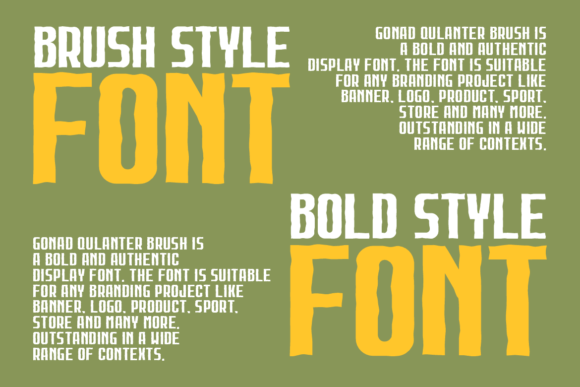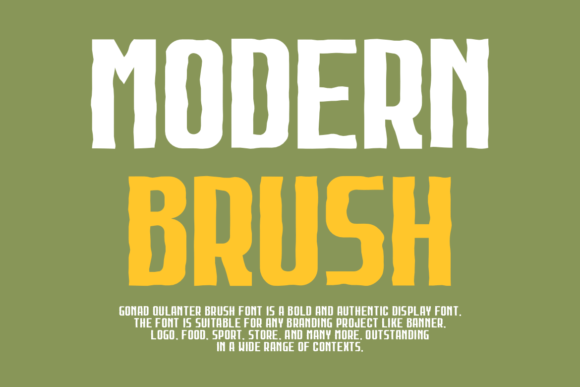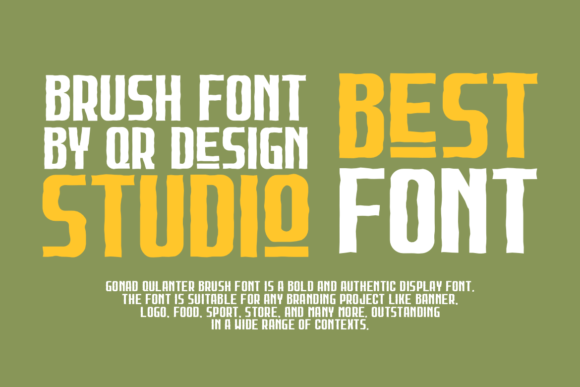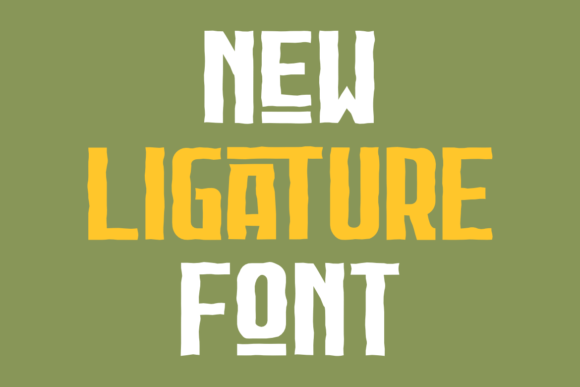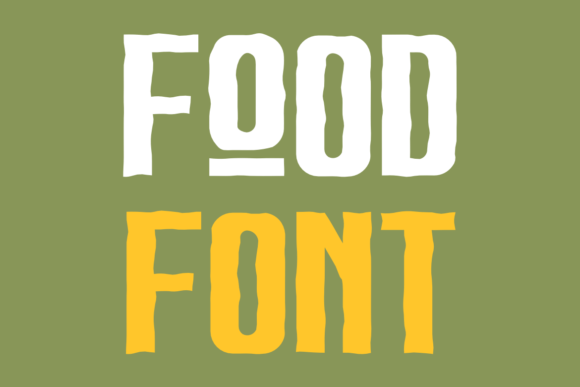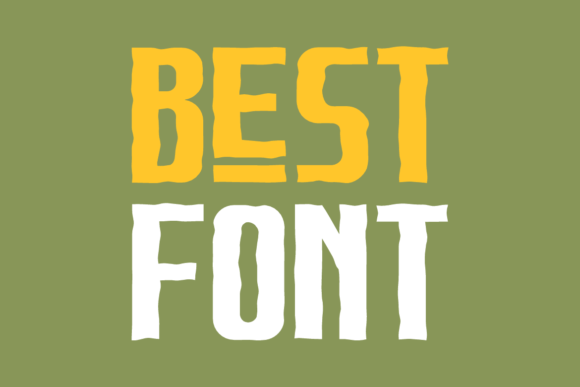
Gonad Qulanter Brush Font: Elevate Your Designs with a Bold and Authentic Touch
In the realm of typography, a font can make or break a design. For those seeking a bold and authentic display font to elevate their branding projects, Gonad Qulanter Brush Font stands out as an exceptional choice. This versatile font is designed to make a statement, perfect for a wide array of applications including banners, logos, sports designs, web design, and product packaging.
Unleashing Creativity with Gonad Qulanter Brush Font
Gonad Qulanter Brush Font is not just any ordinary font; it’s a creative powerhouse that brings a unique blend of boldness and authenticity to the table. Its brush font style gives it a handcrafted feel, making it stand out in a sea of digital designs. Whether you’re working on a branding project that requires a strong visual impact or a craft project that needs a personal touch, this font is sure to deliver.
Key Features of Gonad Qulanter Brush Font
- Bold and Authentic Display: The font’s bold appearance ensures that your message is conveyed with confidence and authority, making it perfect for headlines, titles, and any design element you want to stand out.
- Versatility: From digital platforms to print materials, Gonad Qulanter Brush Font adapts seamlessly across various mediums, ensuring consistency in your brand’s visual identity.
- Wide Range of Applications: Its adaptability makes it suitable for a myriad of design projects. Whether you’re creating a logo that needs to make a strong first impression, designing a banner that captures attention, or crafting a sports-themed design that’s both energetic and engaging, this font fits the bill.
- Easy to Use: Designed with user-friendliness in mind, Gonad Qulanter Brush Font can be easily integrated into your design workflow, allowing you to focus on creativity rather than technicalities.
Applications of Gonad Qulanter Brush Font
The applications of Gonad Qulanter Brush Font are vast and varied. Here are a few ideas to get you started:
- Banners and Posters: Create eye-catching banners and posters for events, promotions, or announcements that demand attention.
- Logo Design: Develop a memorable logo for your brand that communicates your values and stands out in the market.
- Sports Designs: Perfect for designing jerseys, sports equipment, or promotional materials that require a bold and dynamic look.
- Web Design: Enhance your website’s visual appeal with headings, titles, and call-to-action buttons that utilize the font’s bold and authentic style.
- Product Packaging: Add a personal touch to your product packaging, making it more appealing and reflective of your brand’s personality.
Tips for Using Gonad Qulanter Brush Font Effectively
To maximize the impact of Gonad Qulanter Brush Font in your designs, consider the following tips:
- Pair with Simpler Fonts: For readability, pair Gonad Qulanter Brush Font with simpler fonts for body text or secondary design elements.
- Experiment with Colors: Don’t be afraid to experiment with different colors and gradients to find the perfect combination that enhances the font’s appearance.
- Adjust Size and Weight: Play around with the font size and weight to achieve the desired visual hierarchy in your design.
Gonad Qulanter Brush Font is a game-changer for designers and crafters looking to infuse their projects with a bold and authentic touch. Its versatility, ease of use, and dynamic appearance make it an invaluable asset in the world of design. Whether you’re aiming to create stunning banners, impactful logos, engaging sports designs, or captivating web content, this font is your key to unlocking a world of creative possibilities.
Embrace Gonad Qulanter Brush Font in your next design venture and experience the difference it can make in elevating your creations to new heights.